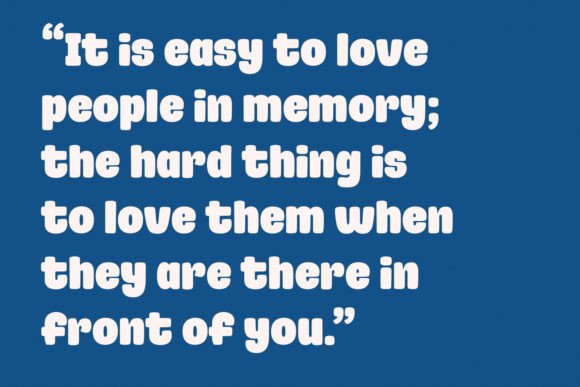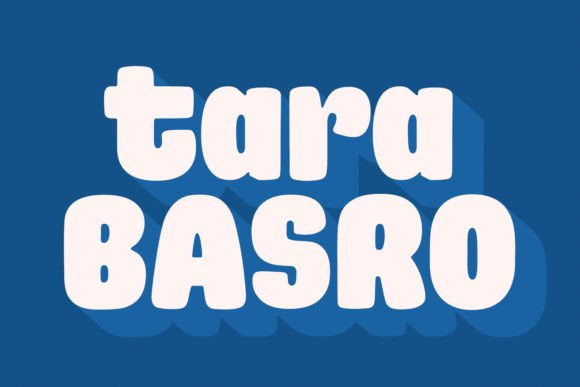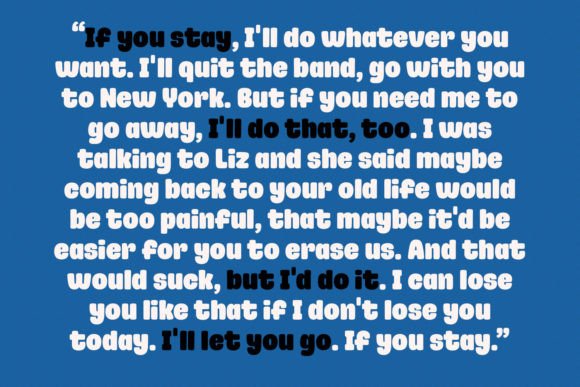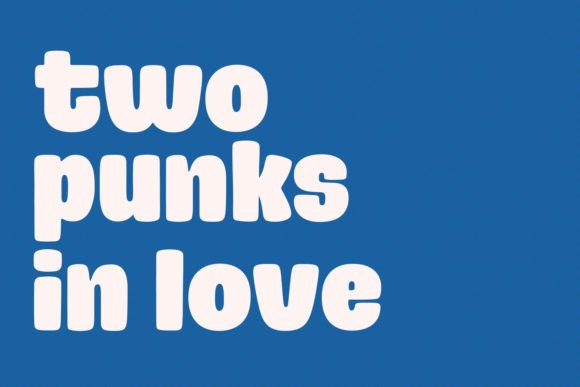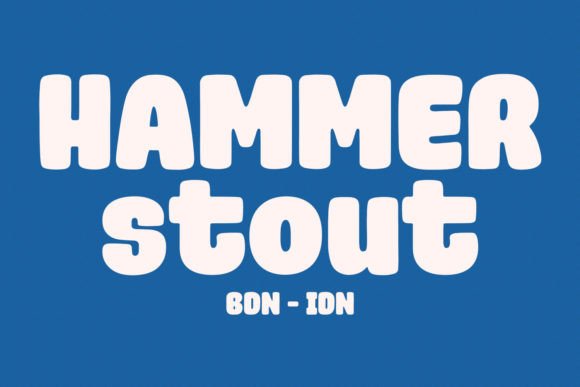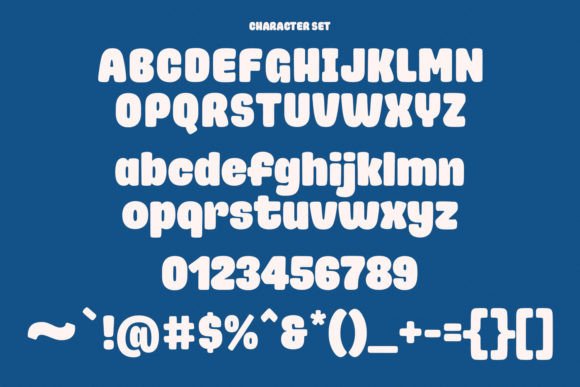
Introducing Guardo Font: The Fun and Creative Display Font for Your Projects
Are you looking for a font that can add a bold yet youthful touch to your designs? Look no further than Guardo Font! This fun and creative display font is perfect for a wide range of applications, from crafting and DIY projects to digital designs and marketing materials. In this article, we’ll take a closer look at Guardo Font and explore its features, benefits, and uses.
What is Guardo Font?
Guardo Font is a modern display font that boasts a bubbly and cute personality. Its unique design makes it stand out from other fonts, and its versatility ensures that it can be used in a variety of contexts. Whether you’re creating a logo, heading, or title, Guardo Font is sure to make a statement.
Key Features of Guardo Font
- Fun and Creative: Guardo Font is a fun and creative font that’s perfect for projects that require a playful touch.
- Bubbly and Cute: The font’s bubbly and cute personality makes it suitable for a wide range of applications, from kids’ projects to adult designs.
- Bold yet Youthful: Guardo Font has a bold yet youthful appearance that’s perfect for designs that need a bit of edge.
- Highly Versatile: The font can be used in a variety of contexts, from digital designs to print materials.
Benefits of Using Guardo Font
So, why should you use Guardo Font for your projects? Here are just a few benefits of using this amazing font:
- Adds Visual Interest: Guardo Font adds a touch of visual interest to your designs, making them more engaging and attention-grabbing.
- Conveys a Playful Message: The font’s playful personality conveys a lighthearted and fun message that’s perfect for brands and projects that want to appear approachable and friendly.
- Enhances Brand Identity: Guardo Font can help enhance your brand identity by adding a unique and recognizable touch to your designs.
Uses of Guardo Font
Guardo Font is a versatile font that can be used in a wide range of applications, including:
- Crafting and DIY Projects: Use Guardo Font to add a personal touch to your crafting and DIY projects, such as handmade cards, gift tags, and scrapbooking pages.
- Digital Designs: The font is perfect for digital designs, such as social media graphics, blog headers, and website titles.
- Marketing Materials: Guardo Font can be used in marketing materials, such as brochures, flyers, and posters.
- Logo Design: The font’s unique design makes it perfect for logo design, especially for brands that want to appear playful and approachable.
Tips for Using Guardo Font
Here are a few tips for using Guardo Font effectively:
- Use it Sparingly: While Guardo Font is a beautiful font, it’s best to use it sparingly to avoid overwhelming your designs.
- Pair it with Other Fonts: Experiment with pairing Guardo Font with other fonts to create a unique and visually appealing combination.
- Experiment with Colors: Guardo Font looks great in a variety of colors, so don’t be afraid to experiment and find the perfect color scheme for your design.
In conclusion, Guardo Font is a fun and creative display font that’s perfect for projects that need a bold yet youthful touch. Its bubbly and cute personality makes it suitable for a wide range of applications, from crafting and DIY projects to digital designs and marketing materials. With its highly versatile design and numerous benefits, Guardo Font is a great addition to any designer’s font collection.